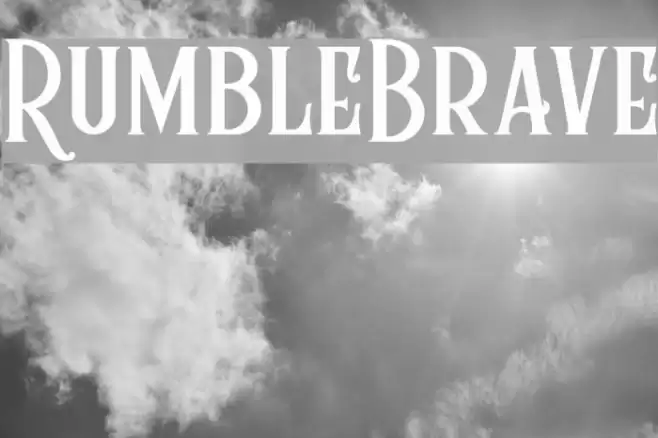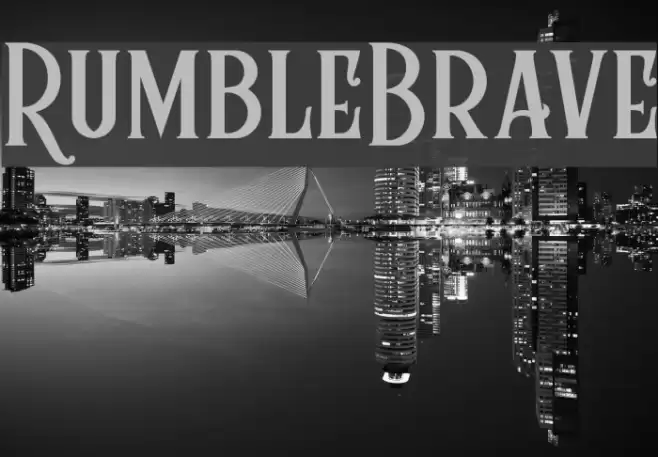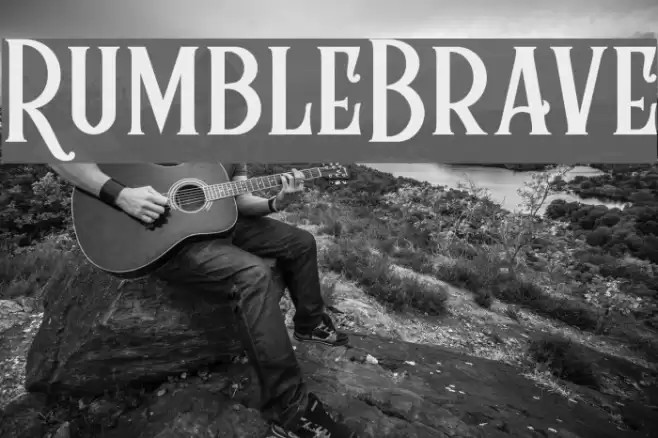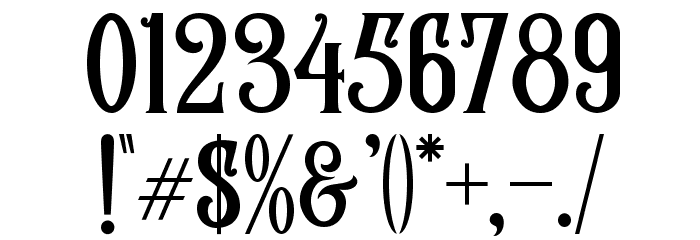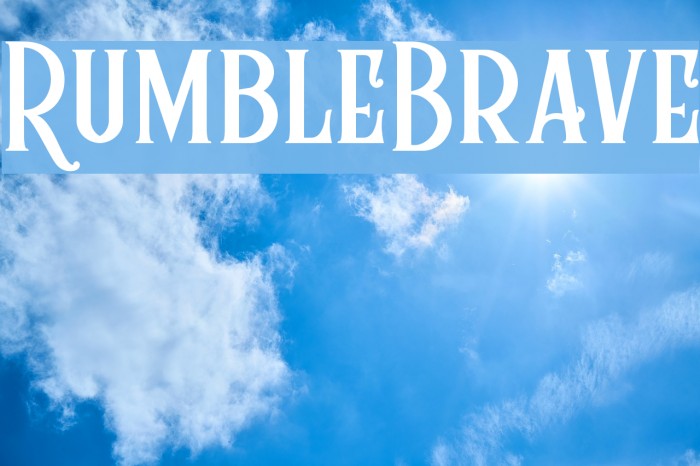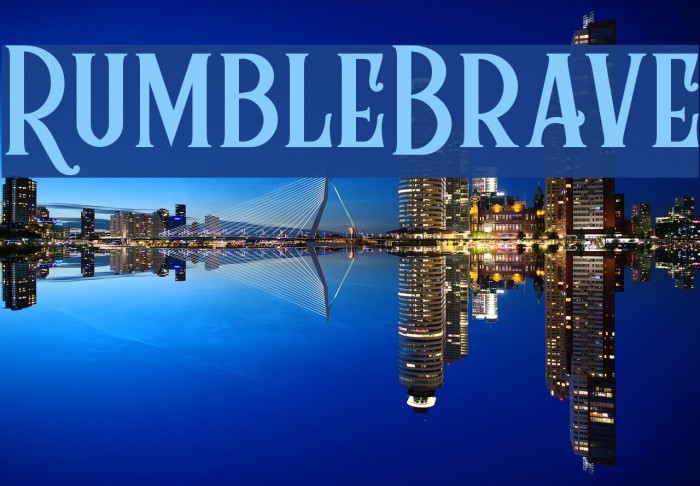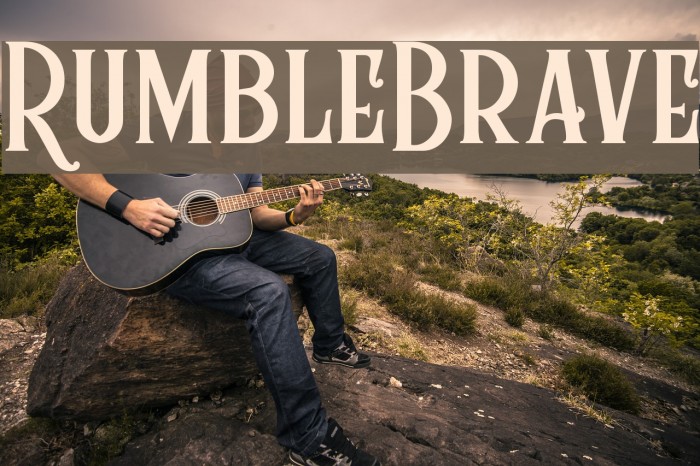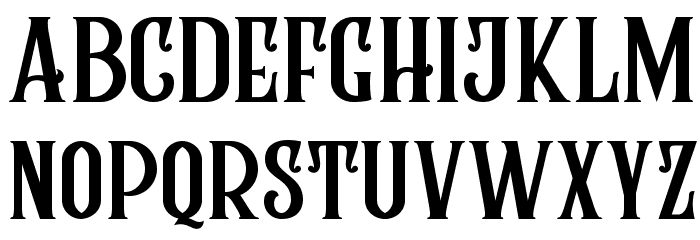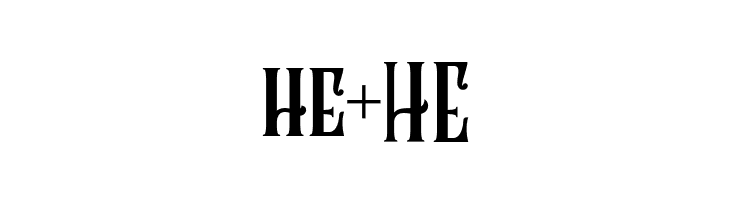
RumbleBrave Font
RumbleBrave Description
This font features a bold and decorative style with a vintage flair, characterized by its unique serifs and intricate detailing. The uppercase letters are tall and commanding, with a slight curvature that adds elegance. The lowercase letters maintain a consistent style, offering a harmonious blend with the uppercase. Numbers and special characters are equally stylized, ensuring a cohesive look across all text. The font's distinct personality makes it ideal for projects that require a touch of sophistication and flair, such as branding, posters, and invitations.
A bold, decorative font with vintage elements and intricate serifs from Uncategorized fonts.
- Proposed Projects: Ideal for branding, posters, invitations, and any project needing a vintage touch.
- Overall Style: Vintage, Decorative